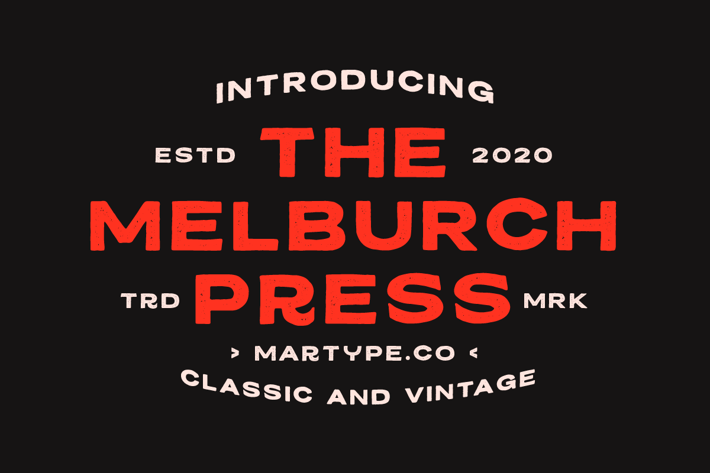
Melburch Press  Typeface
Melburch Stamp is a vintage line typeface inspired by handmade lettering this, typeface is ready to use and suitable retro design like for Logotype, Label, Sign Painting, Badges, Poster and etc.
Melburch Outline Typeface
Melburch Outline Slanted